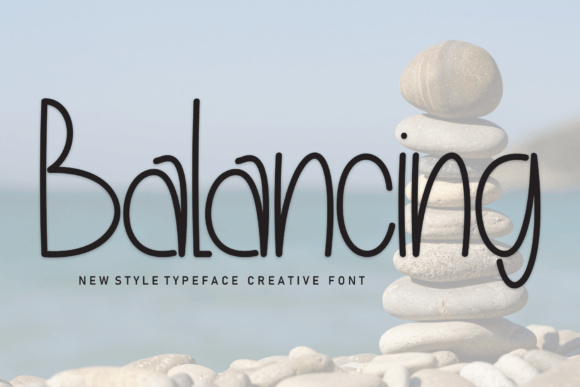
Adding a Touch of Warmth to Your Designs
Have you ever stared at a blank page, feeling the pressure to create something truly special? For designers, this moment can be both exhilarating and intimidating. It’s in these moments that we search for the perfect font to bring our ideas to life.
Enter the Balancing Font, a charming handwritten font that exudes a friendly aura. Its lovable and playful style is designed to instill a sense of joy and cheer in your design work. Whether you’re crafting heartwarming wedding invitations or personalized cards, this font is the perfect choice to add a delightful and engaging touch to your creations.
As a designer, you know how valuable it is to have a versatile font that can adapt to any project. The Balancing Font is that and more, infusing your designs with a vibrant and fun persona that’s sure to leave a lasting impression.
Key Features of Balancing Font
- Font Family: Balancing Font is a sans-serif font family.
- Unique Characteristics: Features a unique balance of modern and classic elements, making it suitable for both contemporary and traditional designs.
Designer Review: Balancing Font
Overall, I think Balancing Font has some great qualities, but it falls short in a few areas.
- Unique Balance**: Balancing Font has a unique, symmetrical design that makes it stand out. It’s perfect for headings and titles where you want to convey balance and harmony.
- Legibility**: The font is highly legible, even at smaller sizes. This makes it a great choice for body text where readability is crucial.
- Flexibility**: Balancing Font works well in both digital and print media. It’s a versatile font that can adapt to different contexts.
- Limited Expressiveness**: While the font is great for conveying balance and harmony, it may not be the best choice for expressing strong emotions or complex ideas.
- Not Ideal for Long Texts**: The symmetrical design of Balancing Font can make it feel stiff or monotonous when used in long blocks of text.
- May Require Adjustments**: Depending on the context, you may need to adjust the font size, line height, or letter spacing to get the best results.
Overall, Balancing Font is a solid choice for projects where you want to convey balance and harmony. While it may not be the best fit for every project, it’s definitely worth considering for headings, titles, and body text where legibility is crucial.
Balancing font is commonly used in:
- Headings and subheadings
- Body text
- Business cards and resumes
Tips: Use balancing font to create a visually appealing and professional design that effectively communicates your message.
Didot Font is a classic serif font that is often used for body text. It is known for its elegant and refined look, making it perfect for formal and luxurious designs. When to use: Use Didot Font for high-end brands, luxury goods, or formal invitations. Comparison: Didot Font is more formal and elegant than Balancing Font, which is more modern and clean. Balancing Font has a more rounded feel, while Didot Font has a more pointed and sophisticated feel.
Merriweather Font is a classic serif font that is known for its clean and elegant look. It is a great choice for body text and is often used in magazines and newspapers. When to use: Use Merriweather Font for publications, magazines, and newspapers. Comparison: Merriweather Font is more traditional and classic than Balancing Font, which is more modern and clean. Balancing Font has a more rounded feel, while Merriweather Font has a more pointed and refined feel.